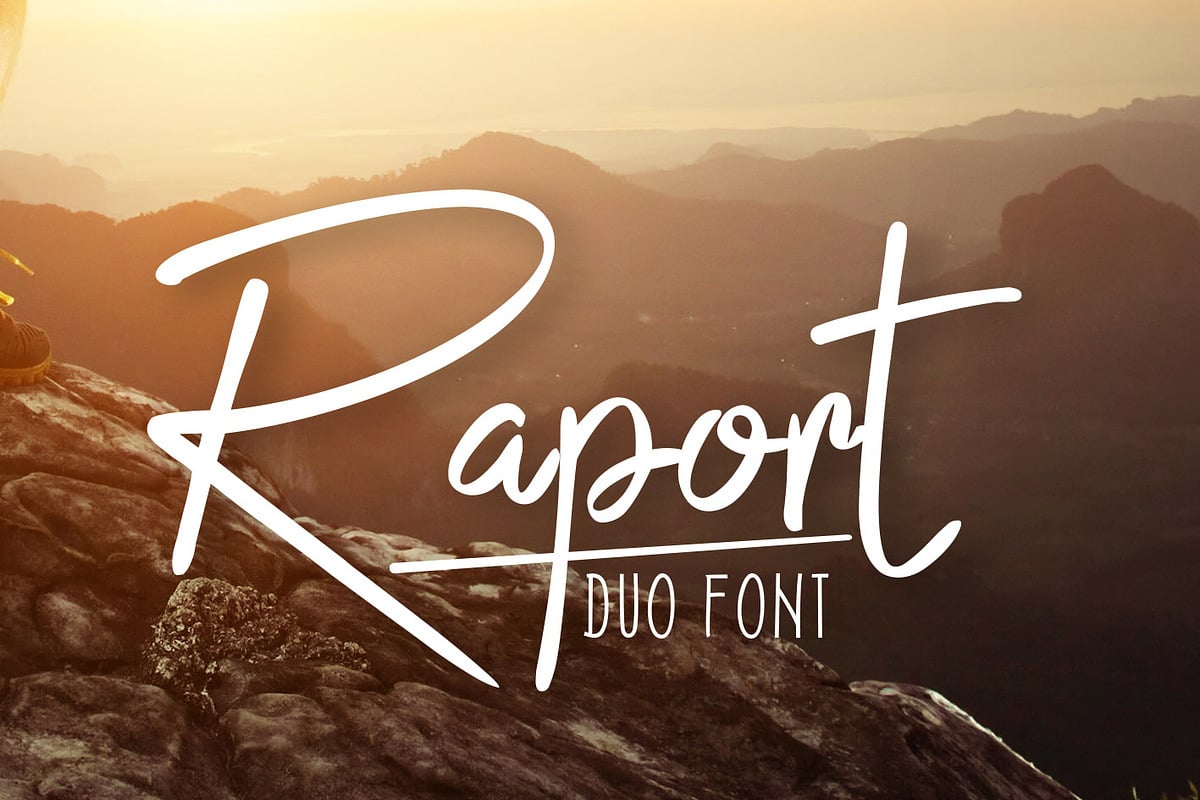
Raport Script (Duo Font + Extra)
Discover Raport Script Typeface – a fresh, unique handmade font duo with distinctive styling for standout designs. This versatile typography collection features two complementary styles: Raport Script and Raport Sans. The handcrafted design brings authentic personality to your creative projects. Perfect applications include: Logo design and branding Wedding invitations and stationery Poster and layout design Apparel graphics Card design and taglines Complete package includes: Raport Script (OTF ...